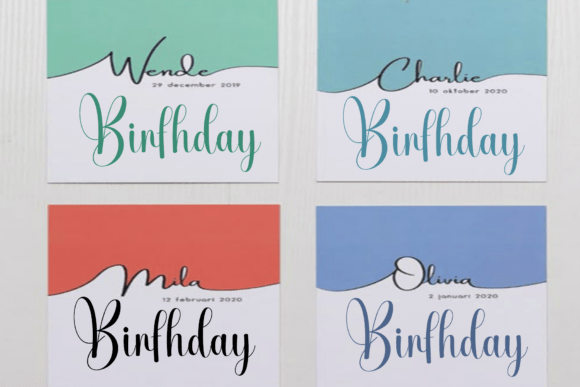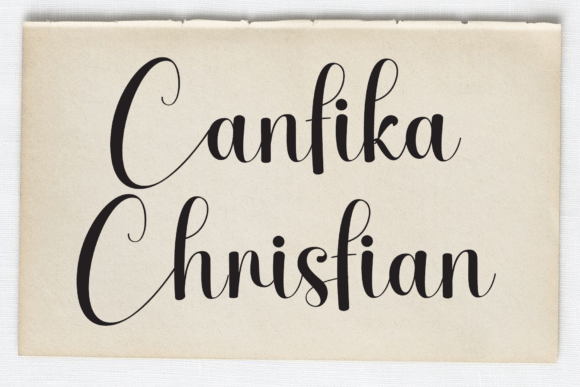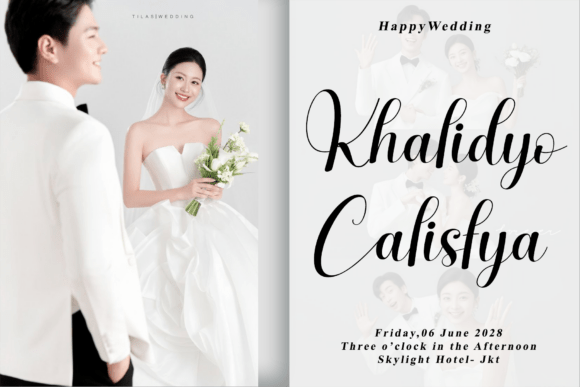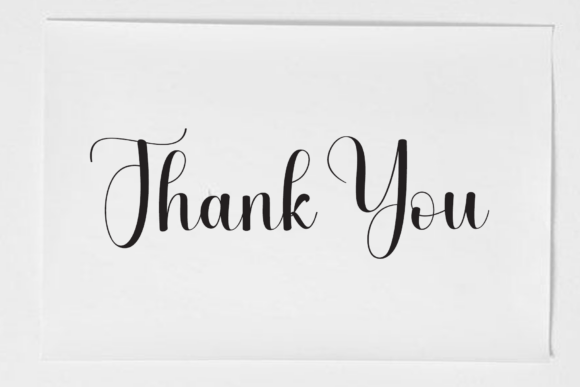
Unleashing the Magic of Handwritten Fonts: Hunting Ringlighty Font
As a designer, there’s nothing quite like the thrill of bringing a brand to life with the perfect font. It’s that moment when you finally find the perfect combination of style and personality, and you know you’ve got a winner. For me, it was that moment when I stumbled upon the Hunting Ringlighty Font, a beautiful and timeless handwritten font that’s been a game-changer for my designs.
With its unique and beautiful touch, Hunting Ringlighty Font is the perfect choice for creating eye-catching logos, branding, and quotes that truly stand out. Whether you’re working on a personal project or a client’s brand identity, this font is sure to bring a touch of elegance and sophistication to your design. And for designers, that’s priceless – a versatile font that can elevate any project and leave a lasting impression.
- Unique Characteristics: The font features a unique blend of modern and vintage elements, with intricate details and ornaments that add a touch of elegance to any design.
Hunting Ringlighty Font Review
I recently had the chance to work with the Hunting Ringlighty Font, and I must say it’s a unique and quirky addition to any design project. ✨ Here are a few things that worked well for me:
- The font’s handwritten feel adds a personal touch to any text-based design.
- The varied line thickness and irregular letterforms create visual interest and make the font stand out.
- The font is highly customizable, with a wide range of OpenType features and stylistic sets.
However, there are also some limitations to consider: ⚠️
- The font may be too ornate for certain types of projects, such as body text or headlines that need to be easily readable.
- The font’s irregularities can make it difficult to use in certain contexts, such as in small text sizes or when combining with other fonts.
- The font’s customization options can be overwhelming for non-designers, which may lead to inconsistent results.
Overall, I think the Hunting Ringlighty Font is a great choice for designers who want to add some personality to their projects. However, it’s not a good fit for every project, and designers should carefully consider the font’s strengths and limitations before using it.
To get the most out of the Hunting Ringlighty Font, use it in bold or italic styles to add emphasis to your text. Pair it with a clean and simple background to make your text stand out.
The Hunting Ringlighty Font is perfect for use in logos, branding materials, and marketing materials. It’s also great for use in digital art and creative projects where a unique and eye-catching font is needed.